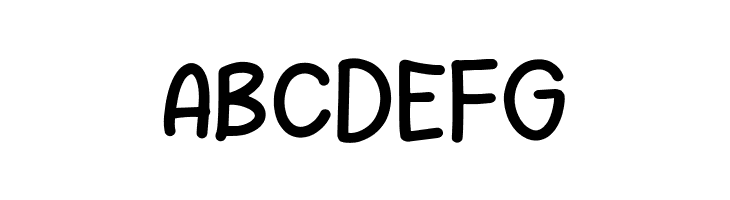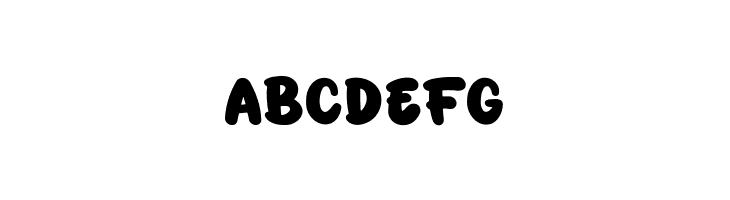
A playful, bold font with rounded, bubbly characters and a hand-drawn feel.
A playful, handwritten font with rounded edges and a casual, friendly style.
A bold, hand-drawn font with a playful scribble texture.